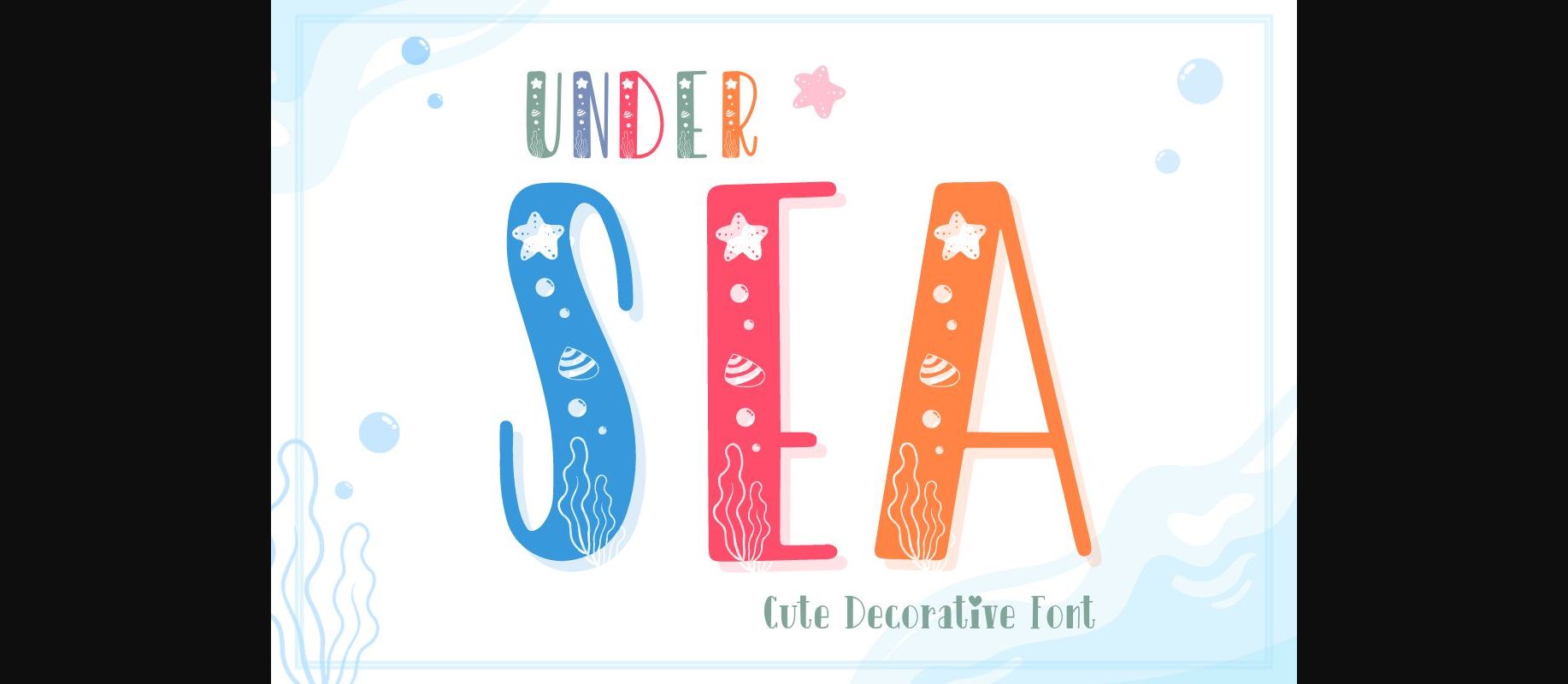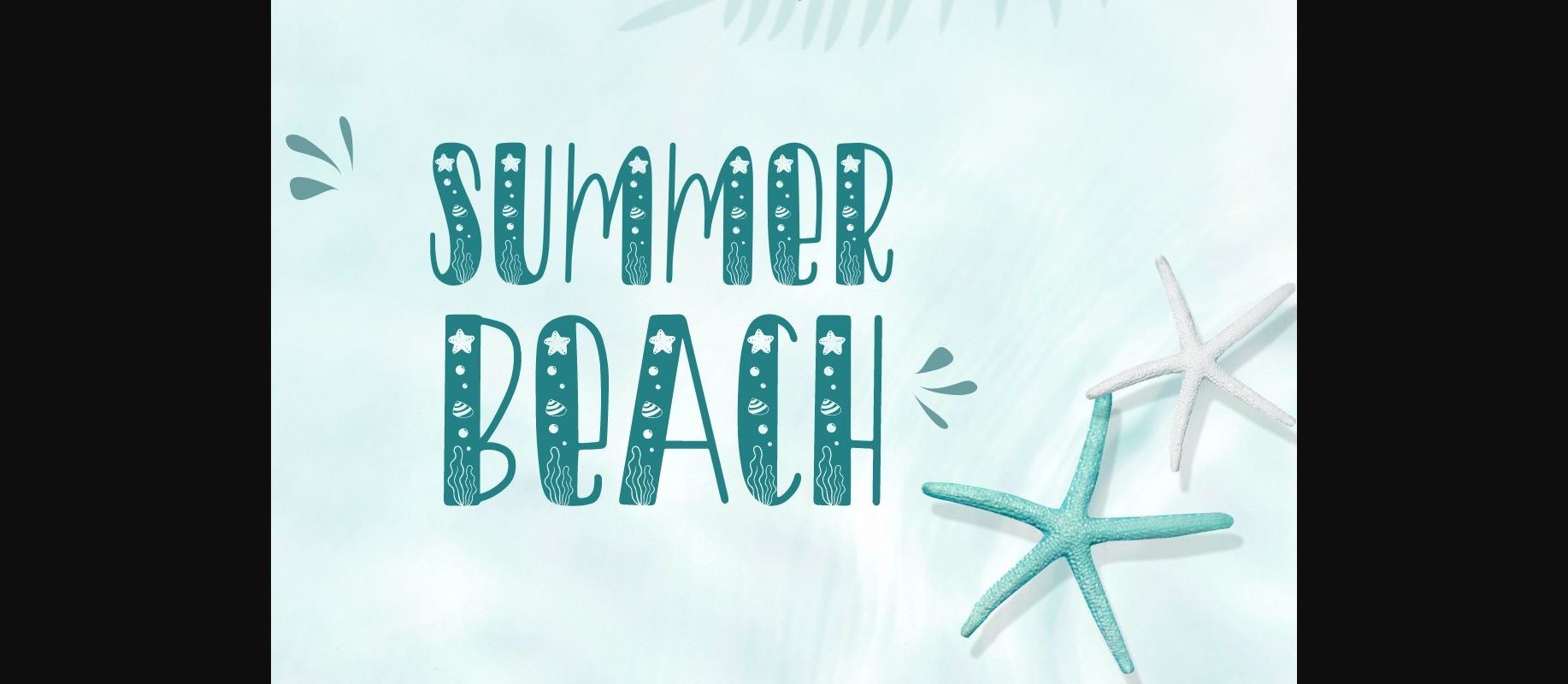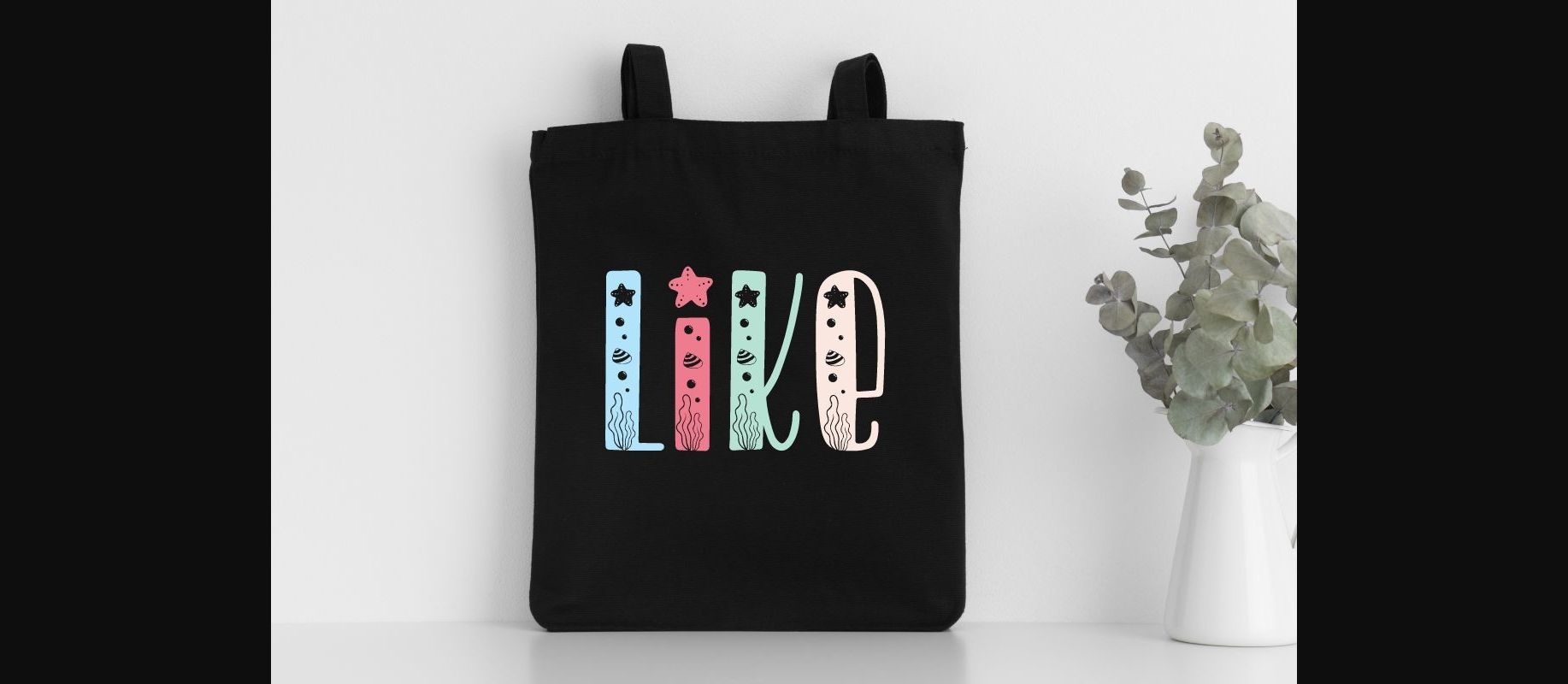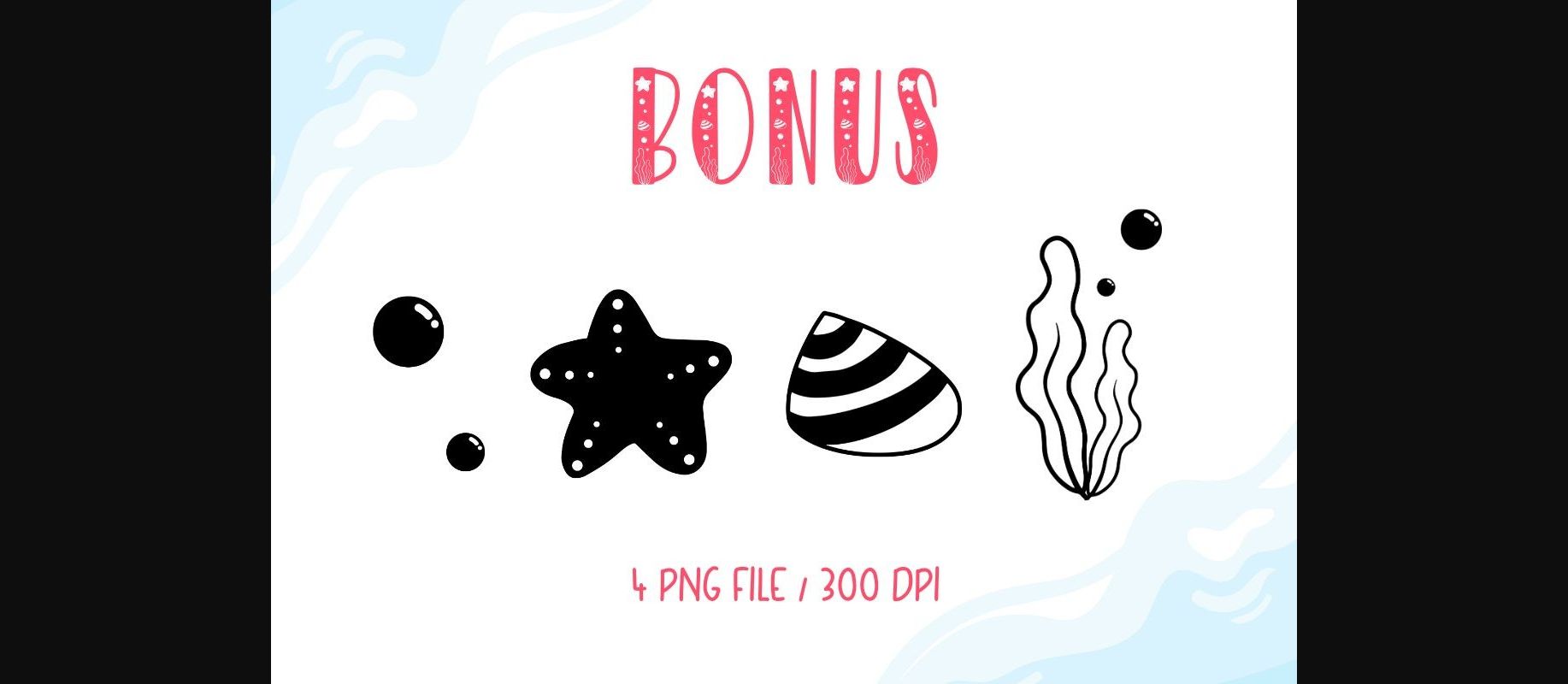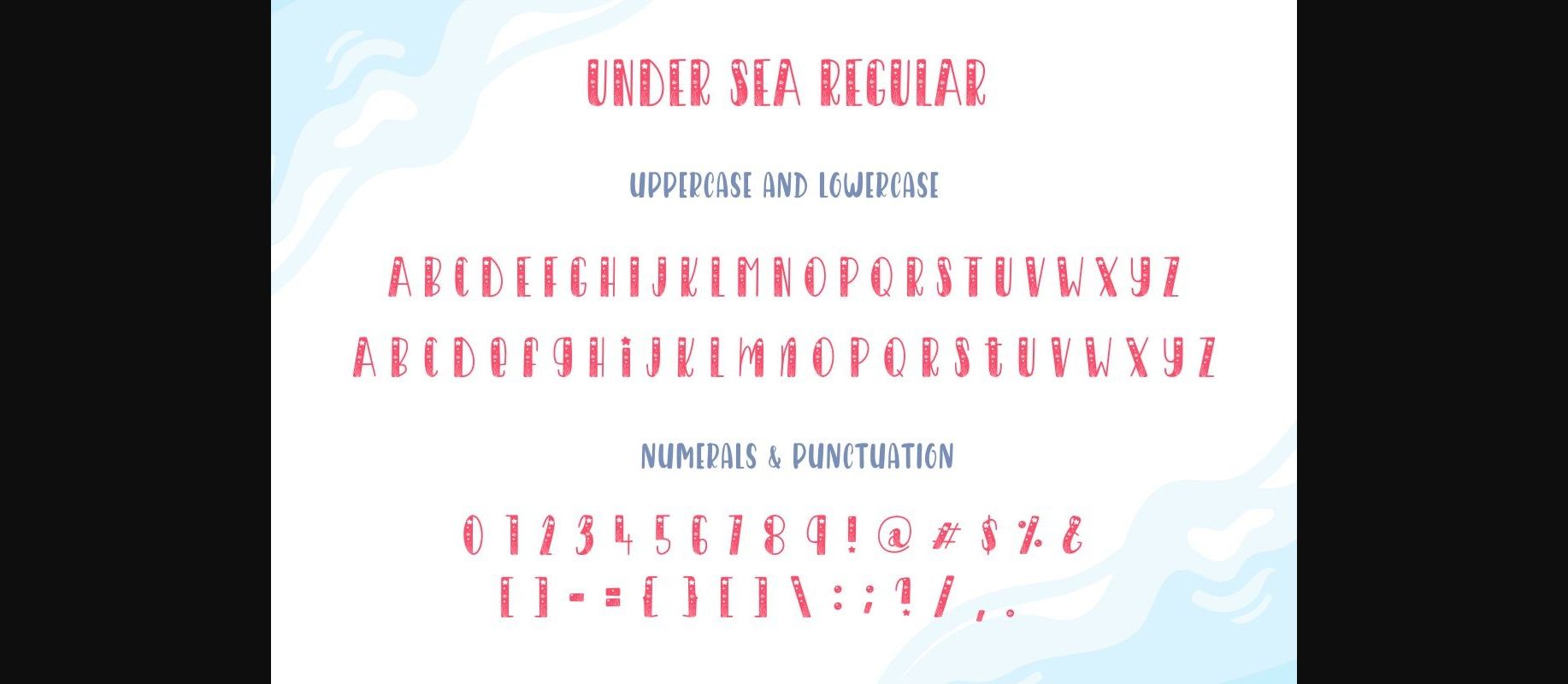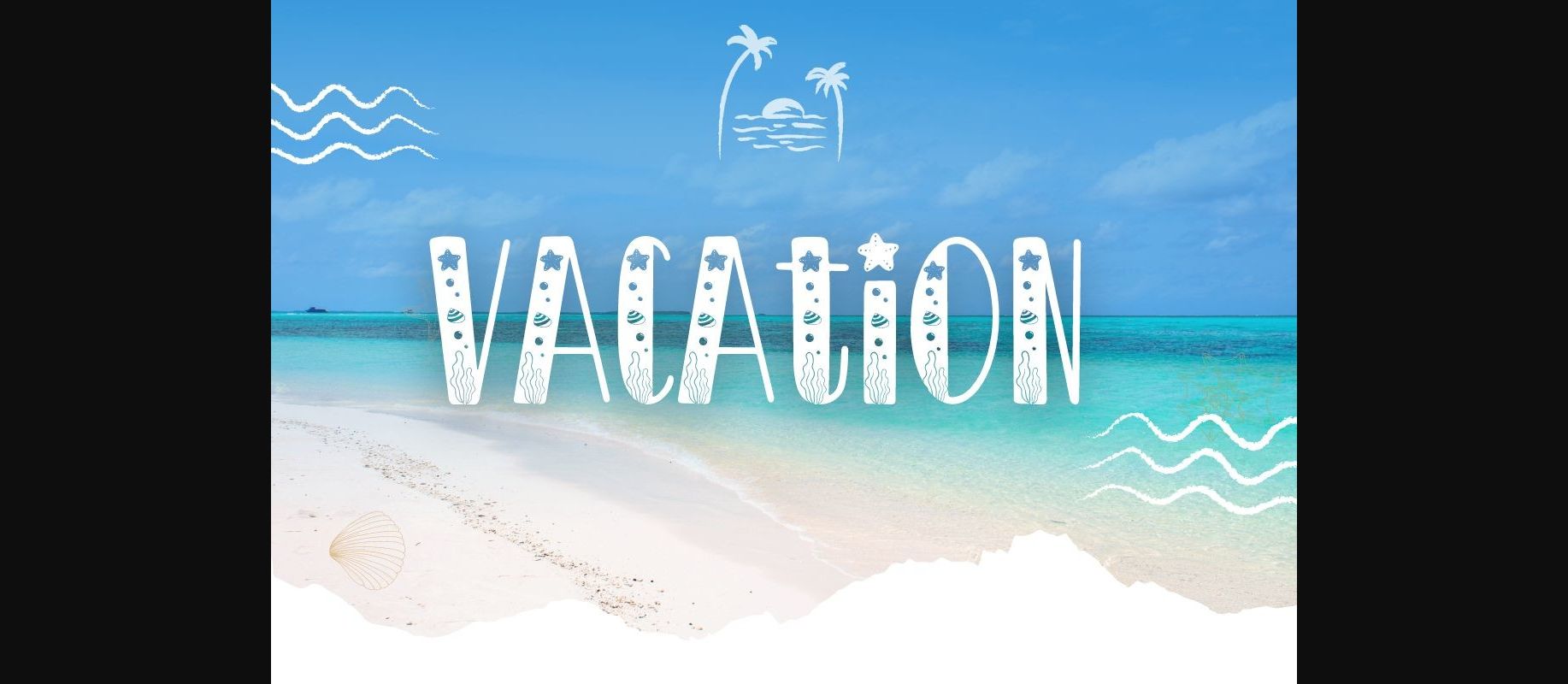
About Under Sea Font
Under Sea is a lovely and cute decorative font that adds a touch of whimsy and charm to any project. Its playful and delicate letters with cute heart motifs create a romantic and cheerful look that is perfect for greeting cards, invitations, and designs that require a touch of sweetness.